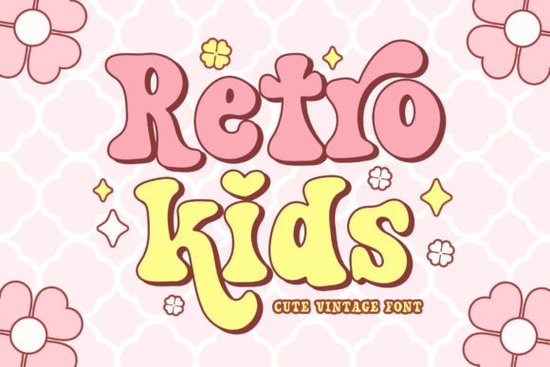
If you're looking for a font that brings a touch of nostalgia and fun to your designs, the Retro Kids Font is a great choice. This cute retro serif font has a vintage, groovy, and playful vibe, making it perfect for a variety of creative projects.
What Makes Retro Kids Font Stand Out?
The Retro Kids Font is designed with a back-to-school theme in mind, but its versatility makes it suitable for many other creative endeavors. It features some alternates for both uppercase and lowercase letters, giving you more options to customize your designs. Whether you're working on a birthday invitation, a summer-themed poster, or a t-shirt design, this font can add a charming and retro touch.
Perfect for Back to School Designs
One of the standout features of the Retro Kids Font is its suitability for back-to-school designs. The font's playful and nostalgic feel can make any school-related project, such as classroom decorations, welcome back banners, or even personalized notebooks, look extra special. Its unique style can help set the tone for a fun and engaging learning environment.
Versatile Use Cases
Beyond back-to-school projects, the Retro Kids Font is incredibly versatile. It works well for:
- Kids' party invitations and decorations
- Birthday cards and posters
- Summer camp flyers and brochures
- T-shirt and apparel designs
- Crafting and DIY projects
- Stickers and sublimation prints
Its fun and retro style can add a delightful touch to any of these projects, making them stand out and capture attention.
Alternates for Creative Freedom
The inclusion of alternates for both uppercase and lowercase letters in the Retro Kids Font allows for greater creativity and customization. You can mix and match different letter styles to create unique and eye-catching designs. This flexibility is especially useful when you want to add a personal touch to your projects.
Complementary Fonts for Your Design Projects
Where to Use the Retro Kids Font
The Retro Kids Font is ideal for a wide range of creative projects. Here are some specific use cases where this font can shine:
- Back to School Themes: Welcome back banners, classroom decorations, and student planners.
- Kids' Parties: Invitations, thank-you cards, and party decorations.
- Birthday Celebrations: Invitations, birthday cards, and party favors.
- Summer Designs: Flyers, posters, and social media graphics for summer events.
- T-Shirts and Apparel: Custom t-shirts, hoodies, and other clothing items.
- Crafting and DIY Projects: Personalized gifts, scrapbooking, and home decor.
- Stickers and Sublimation Prints: Custom stickers, mugs, and other printed merchandise.
Each of these use cases can benefit from the playful and nostalgic charm of the Retro Kids Font.
Practical Tips for Using Retro Kids Font
Here are some practical tips to help you get the most out of the Retro Kids Font:
- Experiment with Alternates: Try different combinations of uppercase and lowercase alternates to find the perfect look for your design.
- Pair with Complementary Fonts: Mix and match with other fonts to create a balanced and visually appealing composition.
- Use for Headings and Titles: The font's playful style makes it ideal for headings and titles, adding a fun and engaging element to your designs.
- Keep It Simple: While the font is versatile, avoid overusing it in a single design. Use it sparingly to highlight key elements.
By following these tips, you can create designs that not only look great but also resonate with your audience. The Retro Kids Font is a fantastic addition to any designer's toolkit, offering a unique and charming touch to your creative projects.